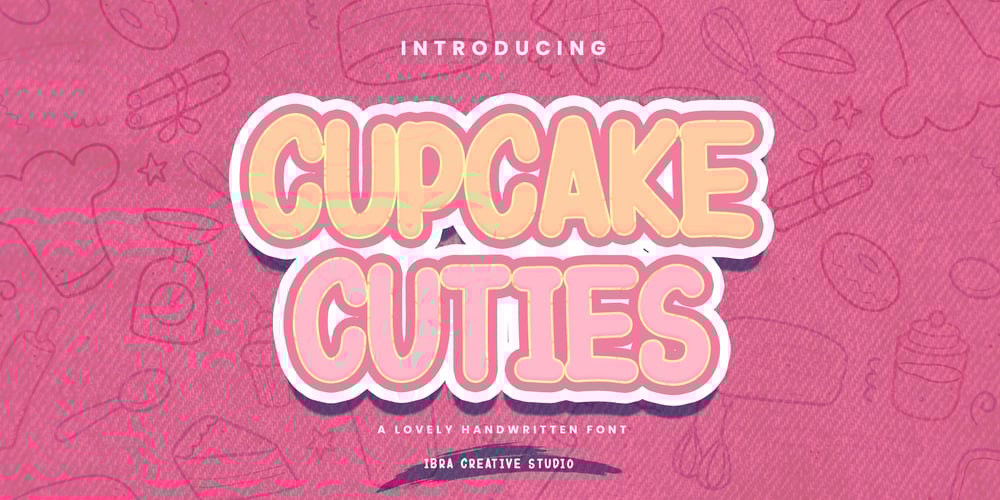
Cupcake Cuties Font Family was designed by Roisatul Azizah and published by IbraCreative. Cupcake Cuties contains 1 styles and family package options. Cupcake Cuties is a delightful and whimsical handwritten font that brings a touch of sweetness and playfulness to all things related to cooking and kids. Its charming letterforms, adorned with playful swirls and endearing curves, evoke the joy and magic of baking and childhood. With each character carefully crafted as if with a sprinkle of fairy dust, Cupcake Cuties adds a whimsical and inviting flair to cookbooks, recipe cards, children’s menus, and party invitations. From delectable cupcake illustrations to delightful kitchen-themed designs, this font captures the essence of culinary creativity and the enchantment of childhood, making it a perfect choice to create a truly delightful and memorable experience for little chefs and their families.